‘arfordsheer Farming’ by Simon Langsdale
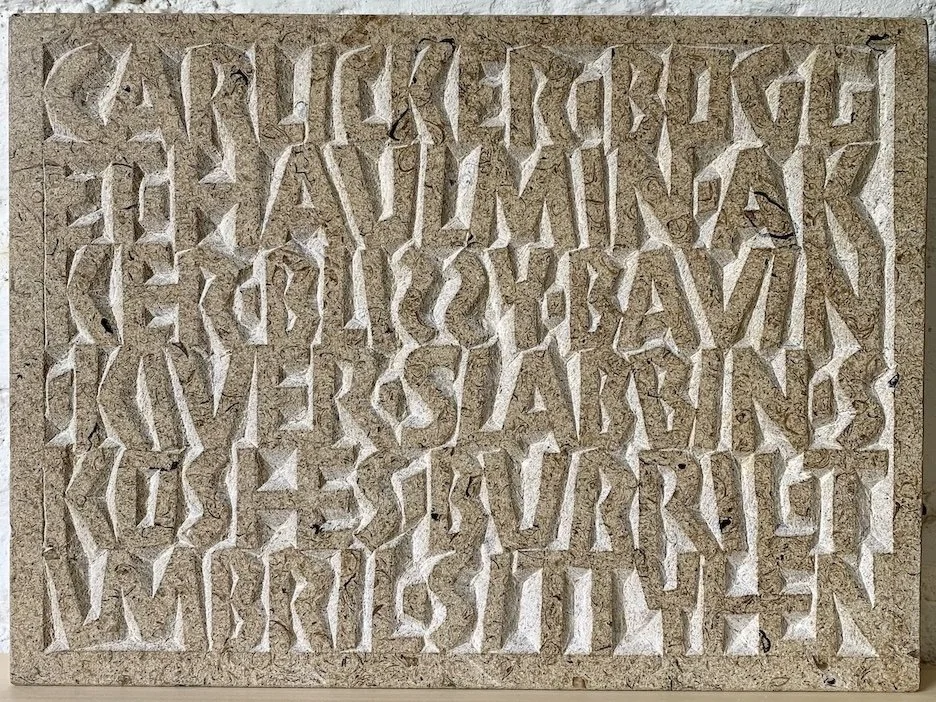
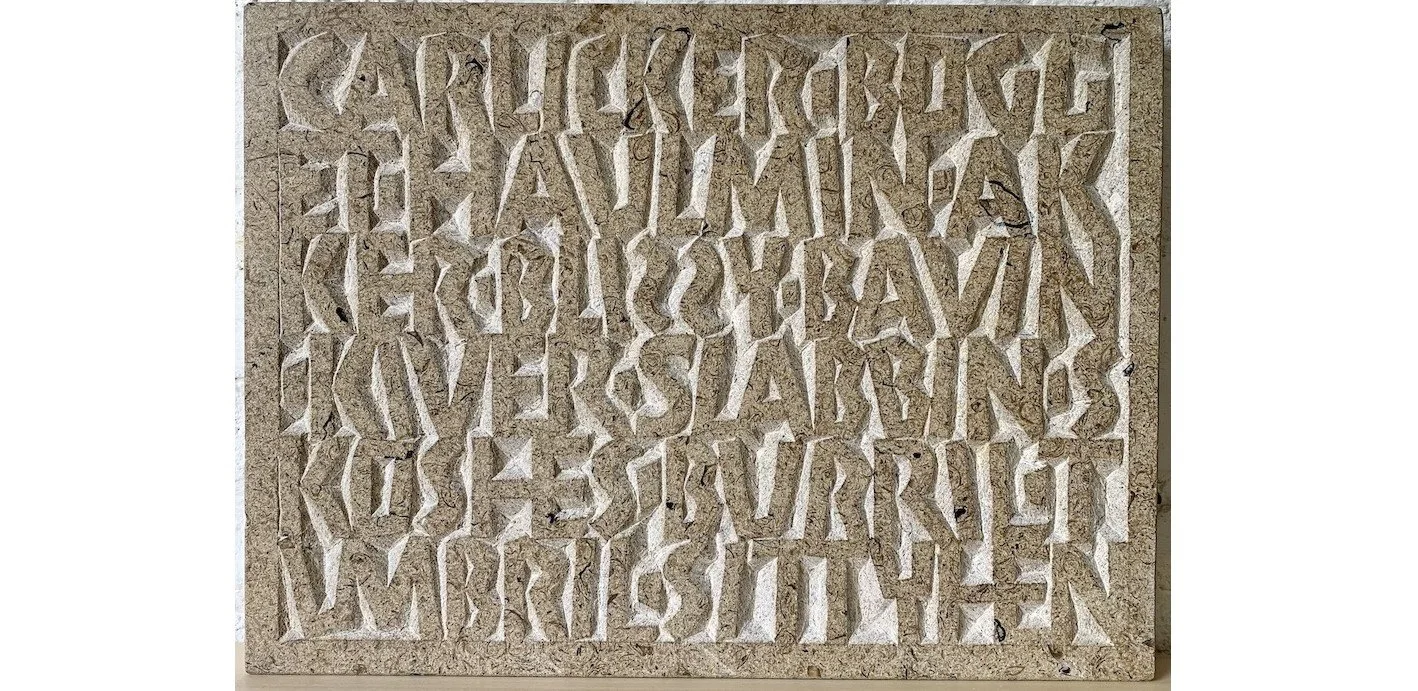
‘arfordsheer Farming’ by Simon Langsdale
‘Being a rural county, farming was a major employer in Hertfordshire. As late as 1875, around 43 per cent of male workers in the county, were employed in agriculture. This piece shows just a small selection of farming related words in Hertfordshire dialect which was widely spoken with variations across the county up to the 1940s. I have chosen to pack the letters in tightly together so that legibility becomes secondary to the play of the spaces between the inside and outside the lettering.’
carlicker – a boy employed to weed crops, bogget – a scarecrow, haulmin – to clear high stubble with a sickle, akker – an acre, blizzy – an out-door fire, a flaring fire in-doors, bavin – a small bundle of 4ft sticks, kiver – an oval oak tub used to make butter, slabbin – elm slabs for the sides of pig-stye, skoshes – grains of corn which fall, in husk, through the threshing machine, burril – furrow, tumbril – wagon, sittyhen – a broody hen.
Relief-carved lettering on Purbeck Thornback stone